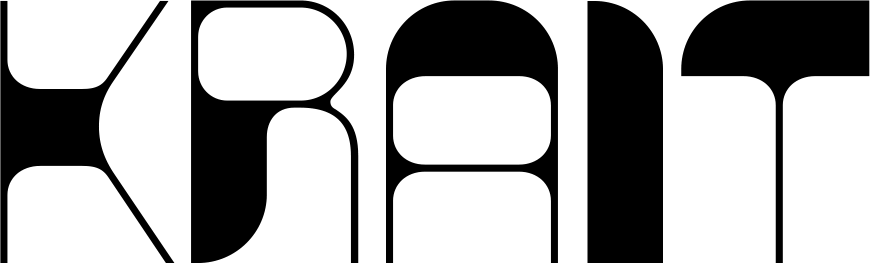
Krait Font
Are you after a krait font to level up your text layouts? If yes, you can’t go wrong with Krait at all. This case is set of 3 different styles. It can be utilized for your logo designs, apparel, tattoos, and more. For more art nouveau fonts, visit our limitless website.
Krait is a layered geometric typeface designed for architectural display. It avoids classic art-deco thick-thin clichés in order to blend in with non-traditional settings. Experiment with inventive layer and offset combinations. Most Latin-based European, Vietnamese, Greek, and most Cyrillic-based writing systems are supported, including the following languages. Afaan Oromo, Afar, Afrikaans, Albanian, Alsatian, Aromanian, Aymara, Azerbaijani, Bashkir, Bashkir (Latin), Basque, Belarusian, Belarusian (Latin), Bemba, Bikol, Bosnian, Breton, Bulgarian, Buryat, Cape Verdean, Creole, Catalan, Cebuano, Chamorro, Chavacano, Chichewa, Crimean Tatar (Latin), Croatian, Czech, Danish, Dawan, Dholuo, Dungan, Dutch, English, Estonian, Faroese, Fijian, Filipino, Finnish, French, Frisian, Friulian, Gagauz (Latin), Galician, Ganda, Genoese, German, Gikuyu, Greenlandic, Guadeloupean Creole, Haitian Creole, Hawaiian, Hiligaynon, Hungarian, Icelandic, Igbo, Ilocano, Indonesian, Irish, Italian, Jamaican, Kaingang, Khalkha, Kalmyk, Kanuri, Kaqchikel, Karakalpak (Latin), Kashubian, Kazakh, Kikongo, Kinyarwanda, Kirundi, Komi-Permyak, Kurdish, Kurdish (Latin), Kyrgyz, Latvian, Lithuanian, Lombard, Low Saxon, Luxembourgish, Maasai, Macedonian, Makhuwa, Malay, Maltese, Māori, Moldovan, Montenegrin, Nahuatl, Ndebele, Neapolitan, Norwegian, Novial, Occitan, Ossetian (Latin), Papiamento, Piedmontese, Polish, Portuguese, Quechua, Rarotongan, Romanian, Romansh, Russian, Rusyn, Sami, Sango, Saramaccan, Sardinian, Scottish Gaelic, Serbian, Serbian (Latin), Shona, Sicilian, Silesian, Slovak, Slovenian, Somali, Sorbian, Sotho, Spanish, Swahili, Swazi, Swedish, Tagalog, Tahitian, Tajik, Tatar, Tetum, Tongan, Tshiluba, Tsonga, Tswana, Tumbuka, Turkish, Turkmen (Latin), Tuvaluan, Ukrainian, Uzbek, Uzbek (Latin), Venda, Venetian, Vepsian, Vietnamese, Võro, Walloon, Waray-Waray, Wayuu, Welsh, Wolof, Xavante, Xhosa, Yapese, Zapotec, Zarma, Zazaki, Zulu and Zuni.